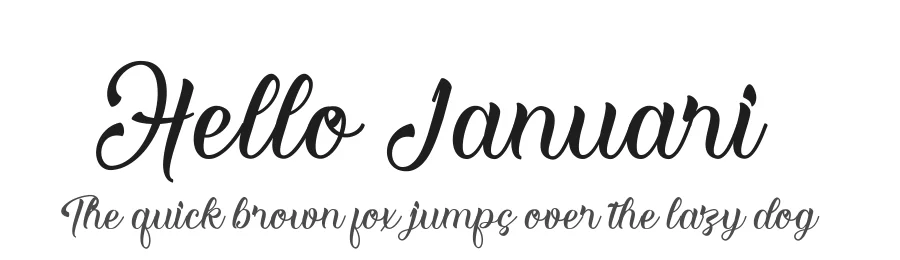
About Naryssa Font
Naryssa is a lovely script font featuring charming, playful characters that seem to dance along the baseline. Add this font to your most creative ideas, and notice how it makes them stand out! Naryssa is PUA encoded which means you can access all of the glyphs and swashes with ease!
Naryssa Font is a script font that shines as a display or heading face. Pair it with a clean sans-serif or serif font for body text β the contrast creates a clear hierarchy while the two styles stay balanced and easy to read.